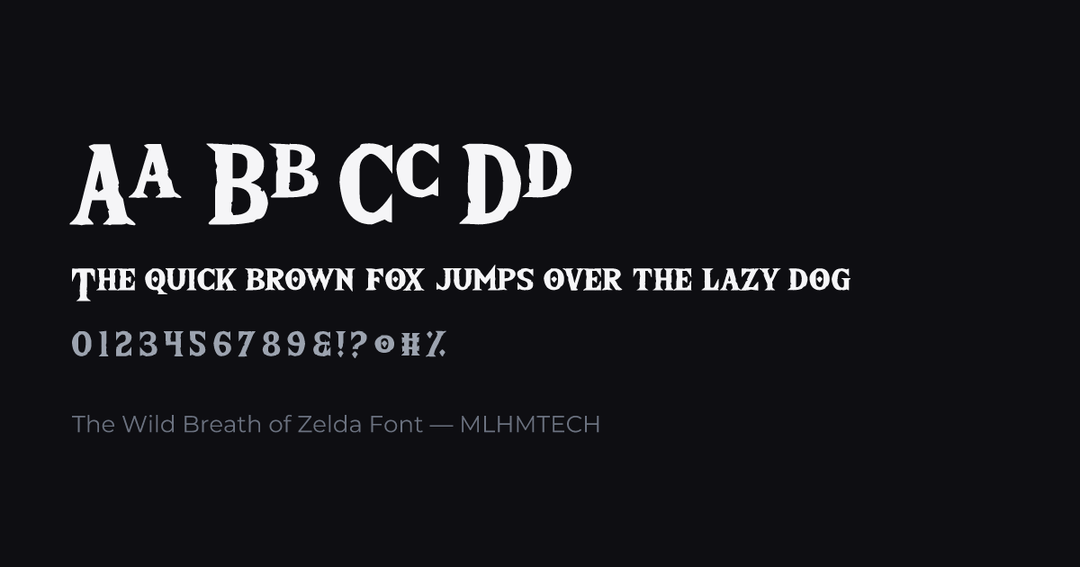
The Wild Breath of Zelda Font
A bold, fantasy-inspired display font that evokes the spirit of adventure and epic quests. Perfect for titles, logos, and gaming graphics.
The Wild Breath of Zelda is a striking display font that captures the essence of the beloved adventure series. Its bold, angular letterforms and rugged edges give it a sense of ancient mystery and heroic scale.
This font is ideal for creating impactful titles, posters, and branding that need a touch of fantasy and legend. Whether you're designing a game interface, a cinematic thumbnail, or a fantasy book cover, this font will add an epic feel.